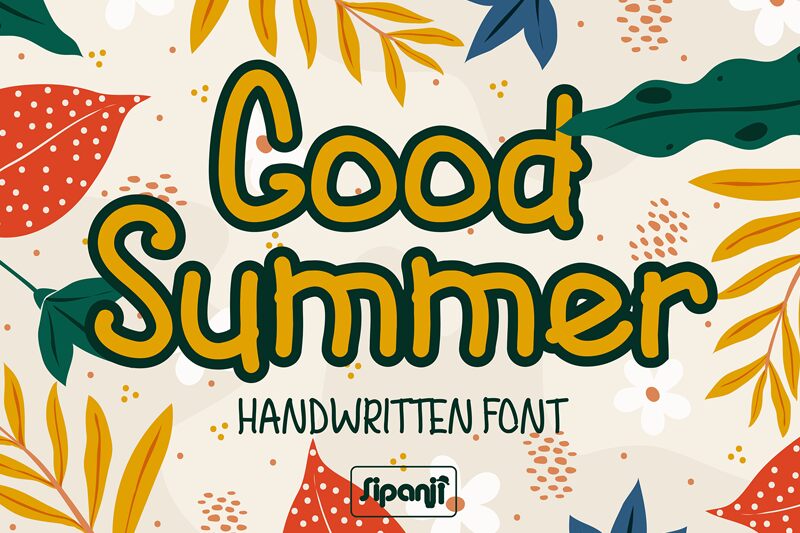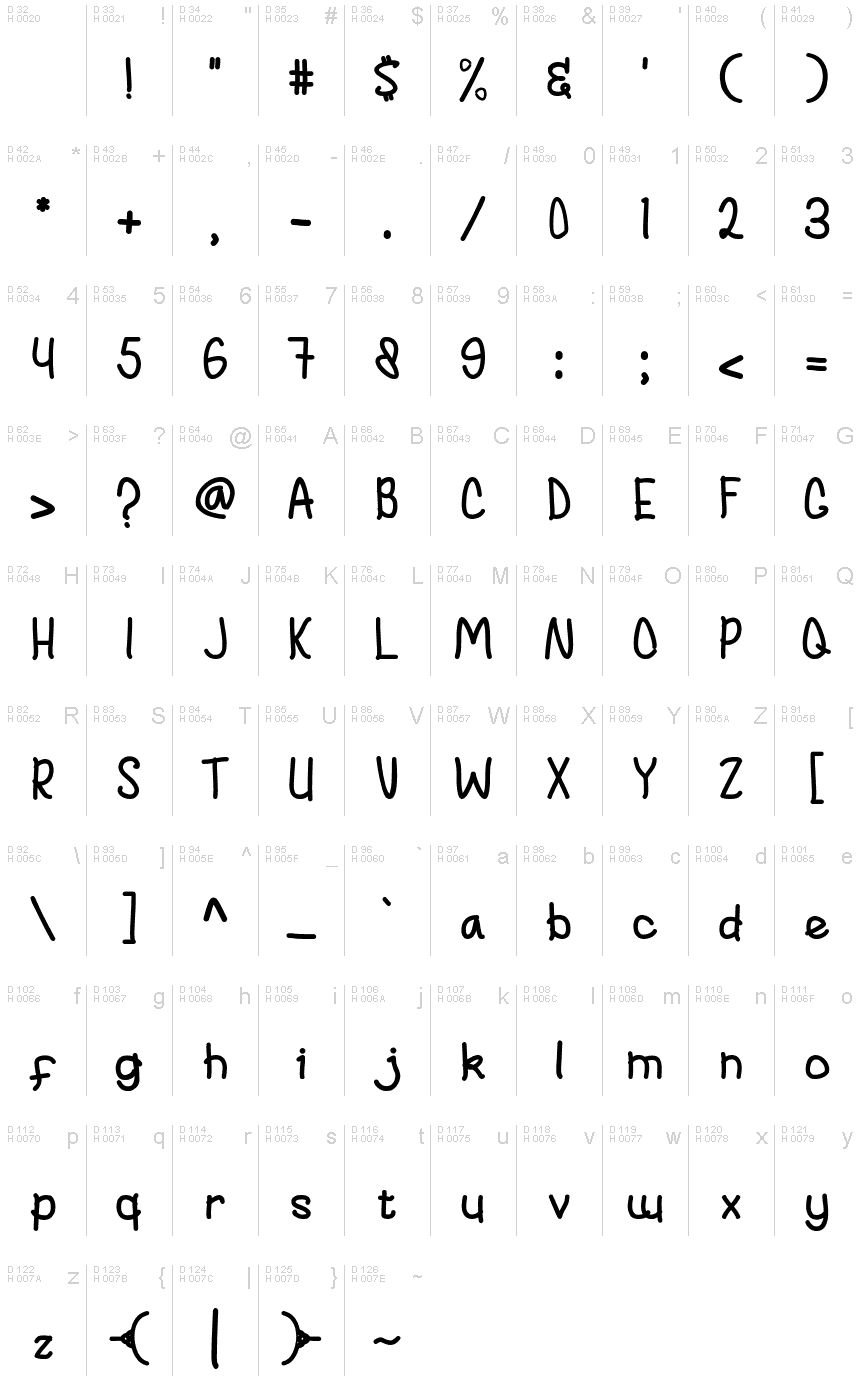
Good Summer
Good Summer is a Handwritten Font with Playfull touch. it offers support of English Language. Standard punctuation glyphs are included. Great for crafters and graphics artist alike. Compatible with all opration system. its playfulness make it great for creative projects, be inspirational wall posters, logo, brand etc.